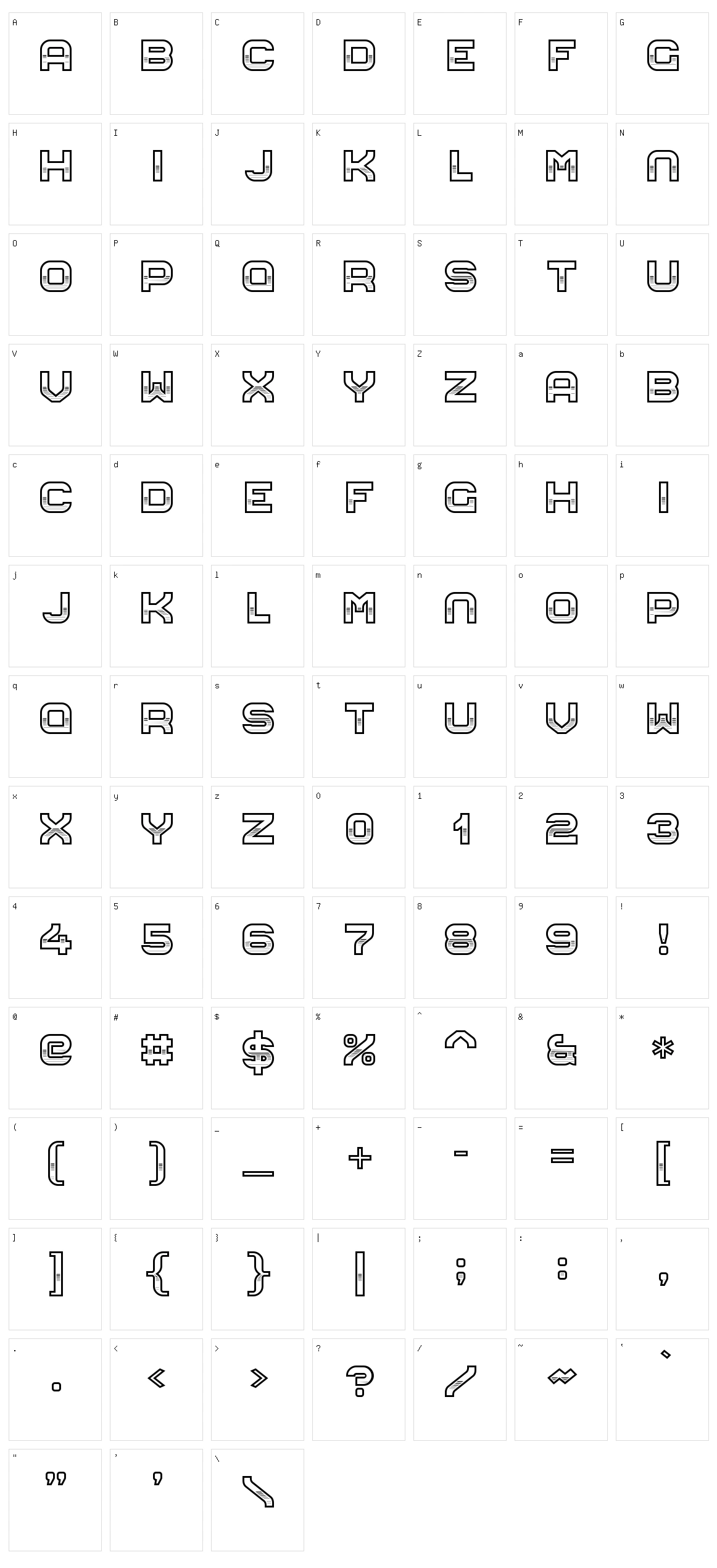
Eighties Monster
Designed by: Vít Čondák
Eighties Monster
by Vít Èondák
A shiny pseudo-sci-fi font with all its eighties glory and kitchiness.
The shape of the letters is inspired by 8bit demo scene.
Lesklý pseudo-sci-fi font s celou svou osmdesátkovou nádherou i kýèovitostí.
Tvar písmen je inspirovaný 8bitovou demo scénou.